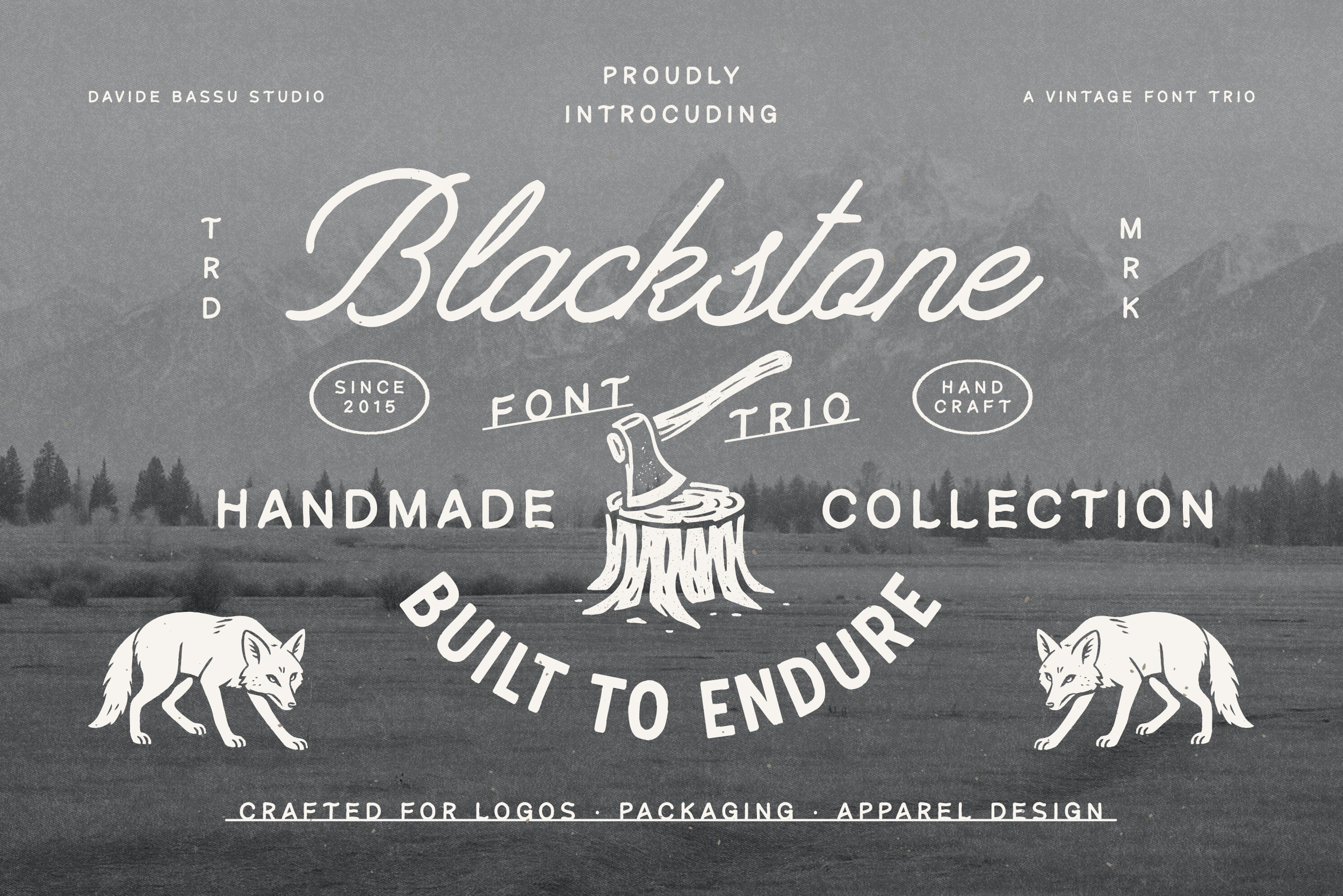
Bold, enduring, and crafted with soul.
Blackstone is a handcrafted font trio designed for creators who value authenticity, heritage, and timeless appeal. Built with a strong vintage spirit and inspired by classic outdoor lettering, each style in the Blackstone family works seamlessly together—offering endless creative potential across branding, apparel, and print design.
The Fonts
Blackstone Script — A flowing, hand-drawn script with natural movement and character. Perfect for signature-style logos, badges, and bold display text that needs a personal touch.
Blackstone Display — A robust handcrafted sans with presence and clarity. Ideal for impactful logos, packaging, and apparel graphics.
Blackstone Caption — A clean, refined companion face designed for captions, taglines, and small text applications that require readability and balance.
From heritage-inspired branding to outdoor lifestyle graphics, Blackstone delivers a versatile and soulful handmade aesthetic. Each letterform was thoughtfully drawn by hand, maintaining subtle imperfections that celebrate true craftsmanship and give your designs depth, warmth, and character.
Blackstone isn’t just a typeface collection—it’s a creative toolkit built for storytellers, makers, and brands with substance.
Logo & badge design
Vintage apparel graphics
Outdoor & adventure branding
Packaging & labels
Posters, signage, and merchandise